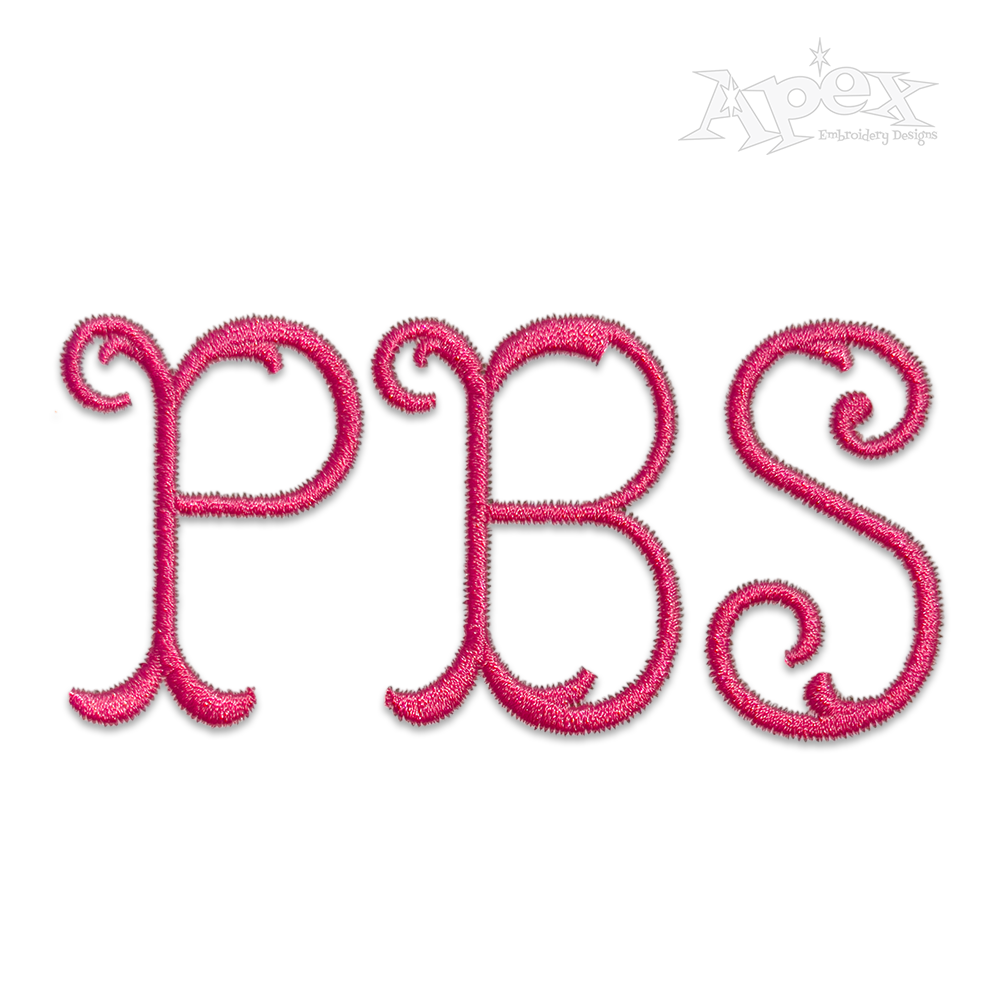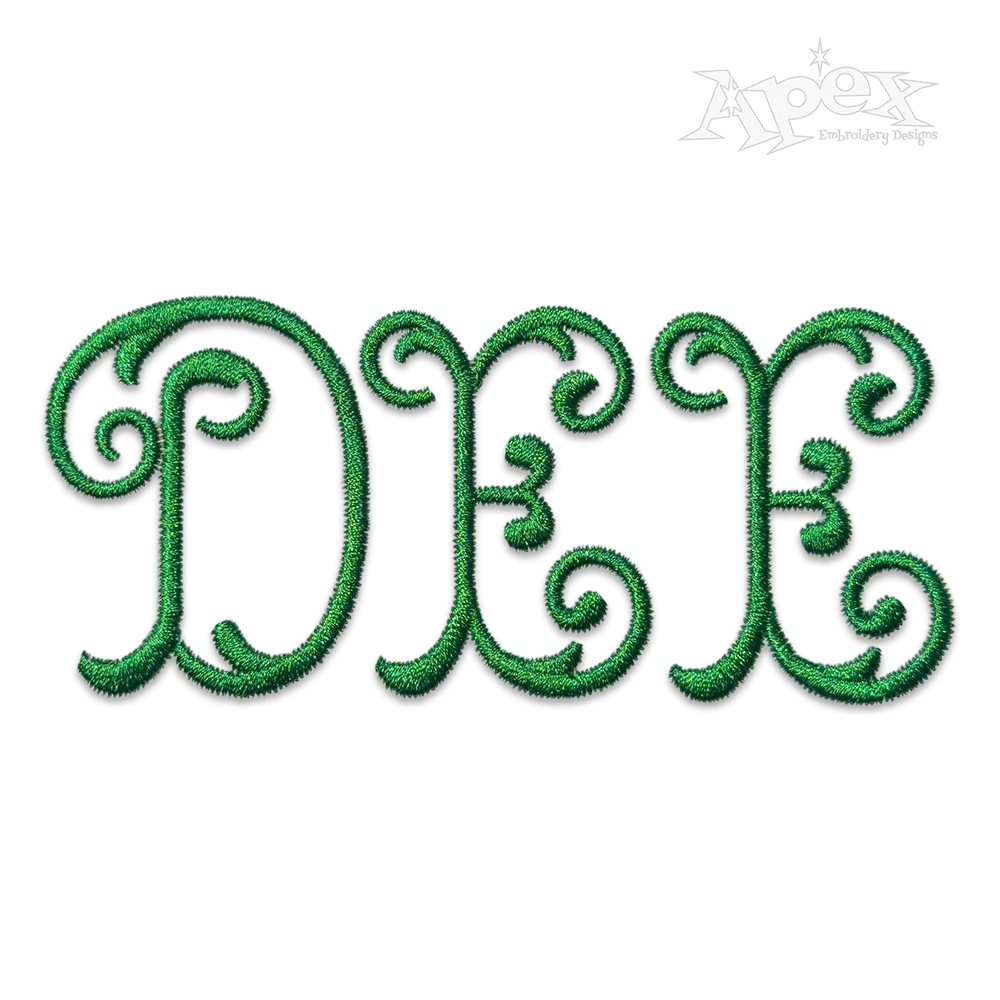
Fancy Fishtail Embroidery Fonts
There is an enduring romance in the distinctive flair of vintage typography, where every curve feels deliberate and steeped in historic grace. In digitizing our Fancy Fishtail Monogram, we drew inspiration from antique hand-drawn copperplate flourishes and Gilded Age crests. The iconic flared serifs split with delicate restraint, tapering into sculptural curls that evoke authentic Old World grandeur. When stitched onto sumptuous natural fibers, this alphabet brings a storied, aristocratic charm to modern heirloom embroidery, turning everyday textiles into cherished family keepsakes.
Project Ideas for Fancy Fishtail
- Luxury Table Linens: Elevate pure Irish linen cocktail napkins and hemstitched runners with crisp, contrast-stitched monograms that command attention at dinner parties.
- Heirloom Nursery & Bedding: Stitch dreamy, vintage-inspired initials onto matelass? coverlets, crisp percale pillowcases, and baby christening blankets.
- Bridal Gifting: Adorn silk kimonos, velvet ring pouches, and honeymoon travel sets with the bride's new monogram for a timeless sentimental touch.
- Bespoke Resort Wear: Transform relaxed linen button-downs, wide-brim sunhats, and structured canvas beach totes into customized boutique resort attire.
Achieving a balanced, professional finish depends on thoughtful placement that complements the sweeping contours of the fishtail serifs:
- Diagonal Napkin Corners: Position the monogram 1.5 to 2 inches from the finished hem point along a 45-degree diagonal. The outward-flaring fishtail serifs naturally mirror and flatter the corner geometry.
- Center Chest & Robes: For loungewear, robes, and sweatshirts, center the monogram 3 to 4 inches down from the collar seam, ensuring the visual weight of the letter rests harmoniously over the sternum.
- Cuff & Pocket Accents: Utilize the 1-inch scale centered horizontally on French cuffs or angled half an inch above a pocket opening for an understated, bespoke tailored detail.
- Duvet & Pillow Accents: Align the bold 3-inch letters dead-center on decorative euro shams or roughly 6 inches beneath the turn-down hem of a luxury flat sheet.
Fancy Fishtail Craft & Letterform Details
True fishtail typography relies on a fine equilibrium between dramatic flared terminals and graceful, flowing body strokes. In this digitization, every stitch angle has been hand-directed to mimic the fluid glide of an artisan's calligraphic pen. The signature split serifs transition seamlessly through progressive satin angles, creating multi-directional light reflection that catches the room's glow without creating heavy knots or excessive density.
We engineered structured underlay foundations to support each satin column, granting the letters dimensional loft that sits proud above textured fabrics like waffle weaves, terry cloth, and slubbed linens. The result is pure artisan craftsmanship: razor-sharp split tails that maintain their definition, smooth continuous arches that run effortlessly, and a regal profile that honors centuries of monogrammed elegance.